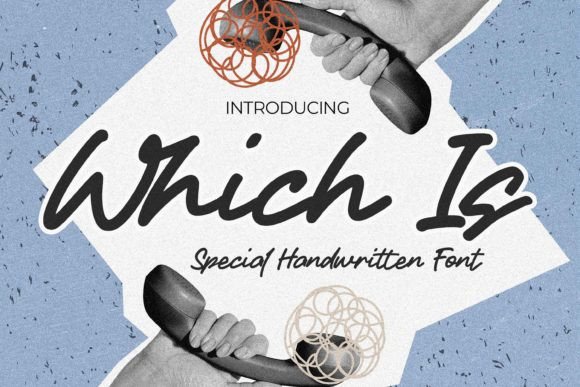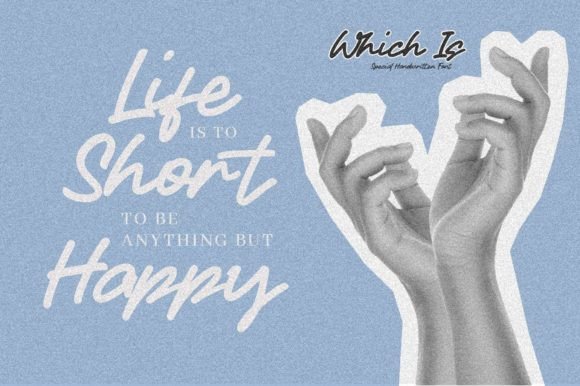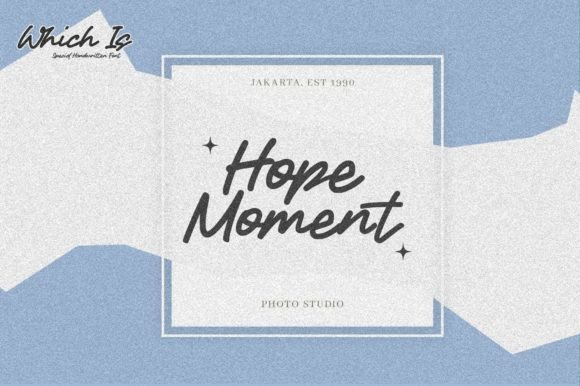
“Which Is” is a distinctive handwritten font that brings a special touch to your creative projects. Textured, natural, and classy, this typeface boasts a clear appearance with dramatic movement, making it an excellent choice for a variety of design applications. Its charming, authentic, and relaxed characters contribute to a more natural and inviting look, enhancing the visual appeal of your text.
This font is crafted with versatility in mind, making it suitable for a range of creative endeavors. Whether you’re working on logos, printed quotes, invitations, cards, product packaging, headers, logotypes, letterheads, posters, watermarks on photography, special events, or any project that requires a handwritten touch, “Which Is” is designed to meet your needs.
The textured and natural quality of “Which Is” adds depth and character to your text, making it stand out with a unique and personal flair. Imagine this font enhancing the elegance of a wedding invitation or adding a touch of authenticity to a product packaging design.
One notable feature of “Which Is” is its PUA encoding, providing easy access to a variety of glyphs and swashes. This feature enhances your creative freedom, allowing you to personalize and customize your designs effortlessly. Whether you’re an experienced designer or someone exploring the world of creative expression, “Which Is” invites you to experiment with its charming elements.
Embrace the natural, classy, and textured aesthetics of “Which Is,” and let it be the font that adds a special and handcrafted feel to your projects. Explore the variety of glyphs and swashes, unlocking the full potential of this font with the convenience of PUA encoding. Whether you’re creating logos or adding a watermark to your photography, “Which Is” is ready to be the distinctive and versatile handwritten font for your next design venture.